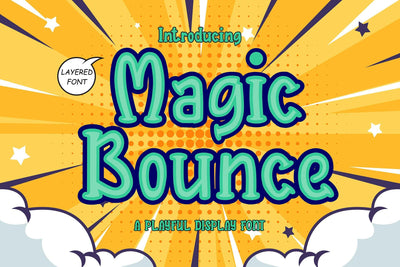
Magic Bounce - Cute 3d Layered Font
"Magic Bounce" is a cute display font with three unique layers: regular, inner shadow, and outer shadow. This font is designed to add a playful and charming touch to your designs. The regular layer provides a delightful and whimsical appearance, while the inner and outer shadow layers add depth and dimension, giving your text a bouncing and magical effect. With its versatile layers, "Magic Bounce" is perfect for creating eye-catching headlines, posters, invitations, and other designs that need a touch of fun and enchantment. Embrace the magic of creativity with this delightful and versatile display font.